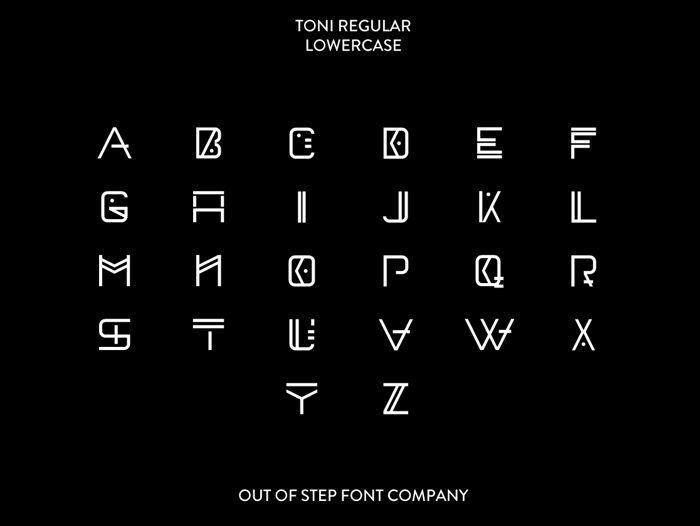
Toni Demo Font
Toni Regular is a bold creative modern sans serif, inspired by the new wave of modern experimental typefaces. This typeface has been designed with separate upper and lowercase letter sets.
Police très exotique, tout droit sortie d'une autre planète !